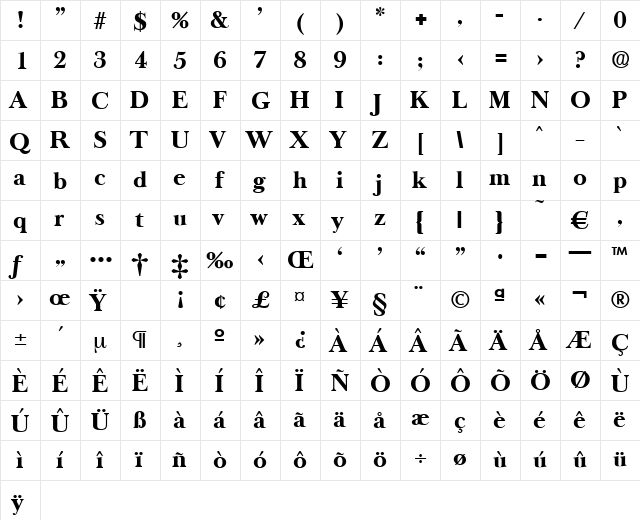
Oldbaskerville-Bold Regular
Design Context for Oldbaskerville-Bold Typeface
Oldbaskerville-Bold offers clean, dependable letterforms without strong stylistic allegiance, making it a practical choice for designers who need flexibility. The heavy weight commands attention and anchors typographic hierarchies.